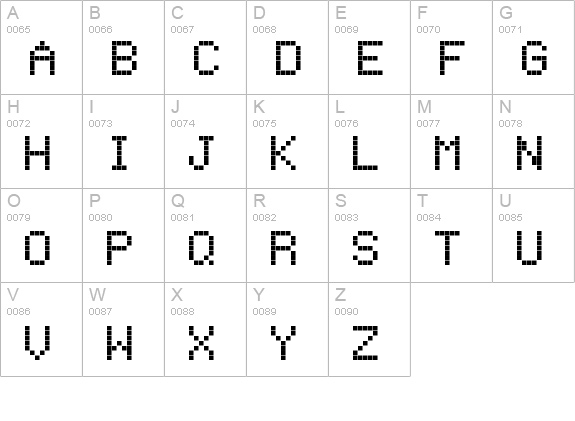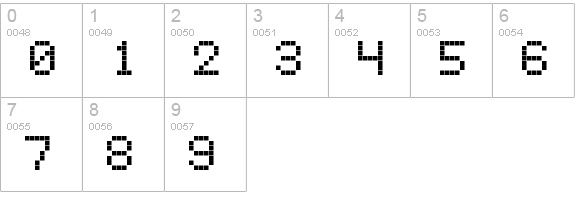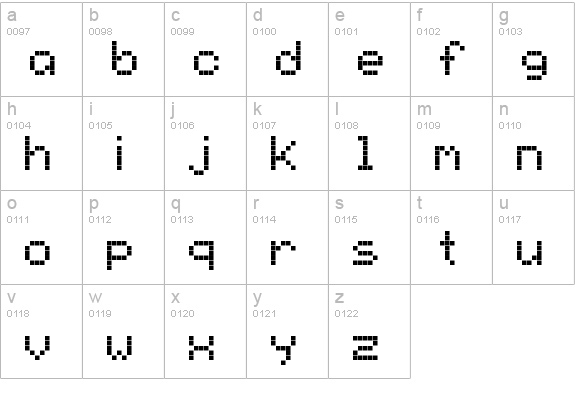
NinePin - DGL Font Details
NinePin - DGL font is a stunning display typeface that effortlessly combines elegance with a touch of modernity. This unique font features intricate details and clean lines that make it perfect for a wide range of design projects. Its bold and sophisticated appearance will grab the attention of viewers and add a touch of sophistication to any project. What makes NinePin - DGL font even more appealing is that it is available for free download at FontsMarket.com. This means that you can easily access this beautiful font and use it in your projects without any cost. Whether you are designing a logo, creating a website, or working on a branding project, NinePin - DGL font is sure to elevate your design and make a lasting impression. With its versatility and eye-catching design, NinePin - DGL font is a must-have for any designer looking to add a touch of elegance to their work. Download this stunning font for free today and take your designs to the next level.